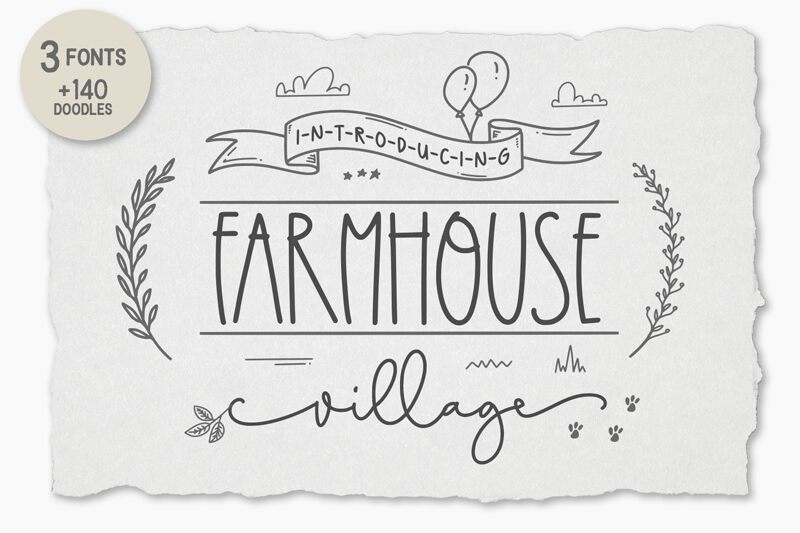
Farmhouse Village C
Farmhouse Village C font by Abo Daniel Studio brings the beauty of the countryside to your graphic design projects with its lovely and relaxing cursive handwritten style. The free handwritten font features neat and clear hand-lettered characters that allow a daggy-cheeky approach and emphasize casual elegance.
Use it in branding, packaging, logos, quotes, invitation cards, labels, photography designs, posters, packaging designs, print publications and magazines covers. Farmhouse Village C is light with flowing movements making it ideal for adding personable touch into various kinds of modern design projects.